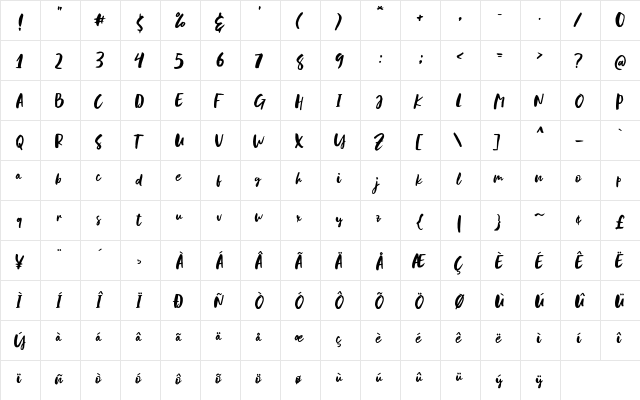
Blastpink Script Regular
Design Context for Blastpink Script Typeface
Blastpink Script flows with the natural rhythm of handwritten lettering, making it ideal for designs that call for warmth and personal expression.
Font Pairing: Combine Blastpink Script with a simple geometric sans for maximum contrast — the tension between flowing curves and clean structure is a classic typographic pairing.
Pro Tip: Use Blastpink Script for short runs of text — names, titles, or taglines. Extended body copy in script faces tires the eye quickly.